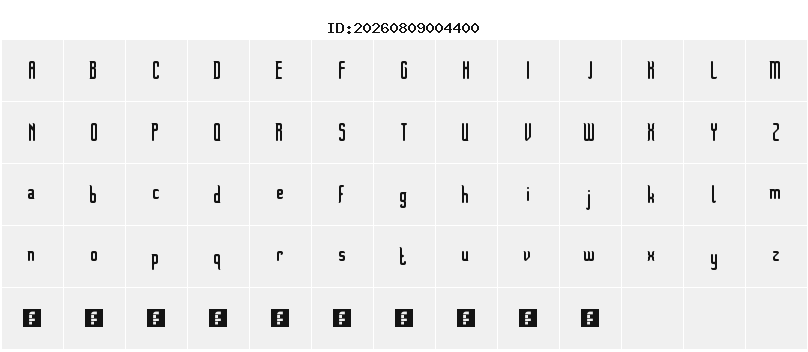
• Font Name: Pinophyta
• Description: ‚ÄúPinophyta ‚Äù was built with FontStruct
Pinophyta .ttf is a modern, elegant sans-serif font designed for ultimate readability and visual harmony. Perfect for branding, headlines, web design, and print materials.